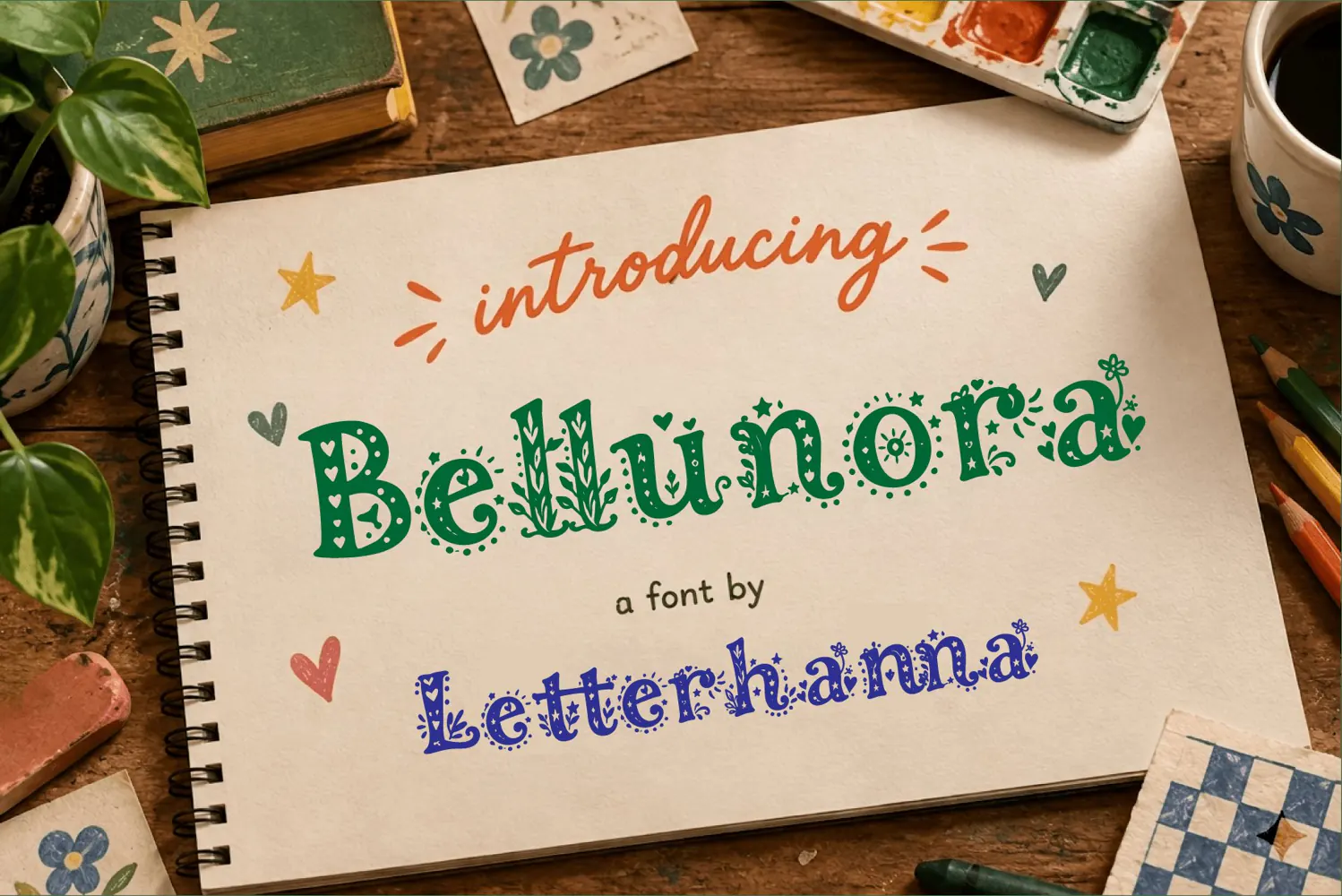
Bellunora: The Girly Font That Turns Plain Text Into Art
Introducing Bellunora — A Girly Font Made for Dreamers Some fonts just say words. Bellunora tells a…